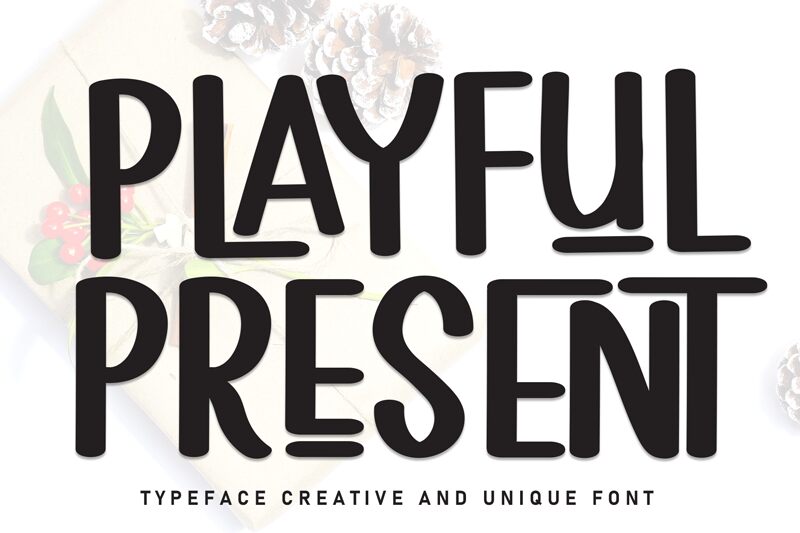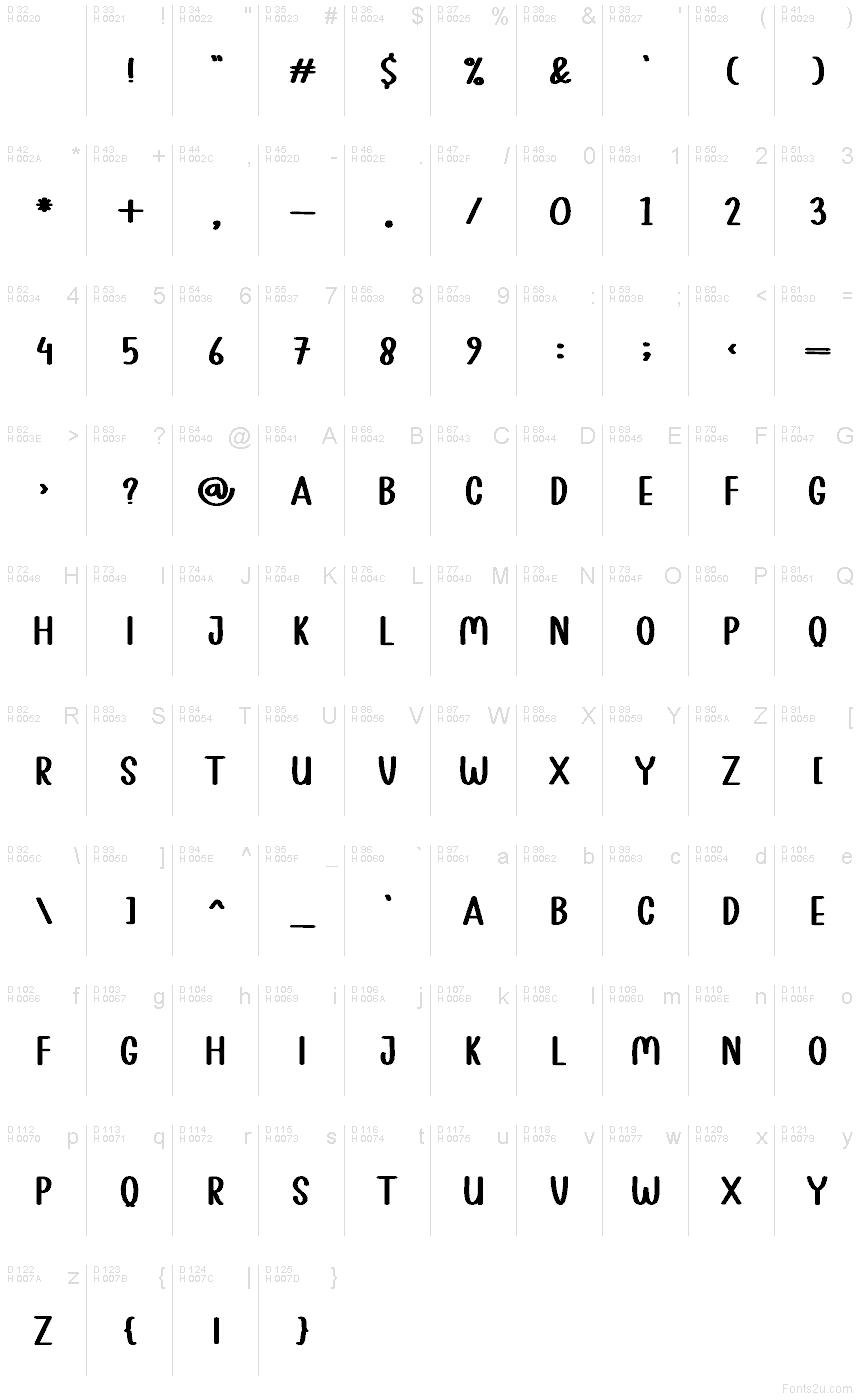
Playful Present
Playful Present font has a unique condensed handwritten style designed by Scratchones. Its friendly appearance within smooth curves and uniform thickness makes it attractive for various projects. The font’s playful yet modern look is ideal for audiences of relatively young age, but others might like what it has to offer too.
Get this simple free handwritten font and use it in branding designs, packaging, labels, flyers, advertising, invitation cards, merchandise designs, social media posts and links. It can also be used in typography posters as well as fonts on books covers and magazine covers.